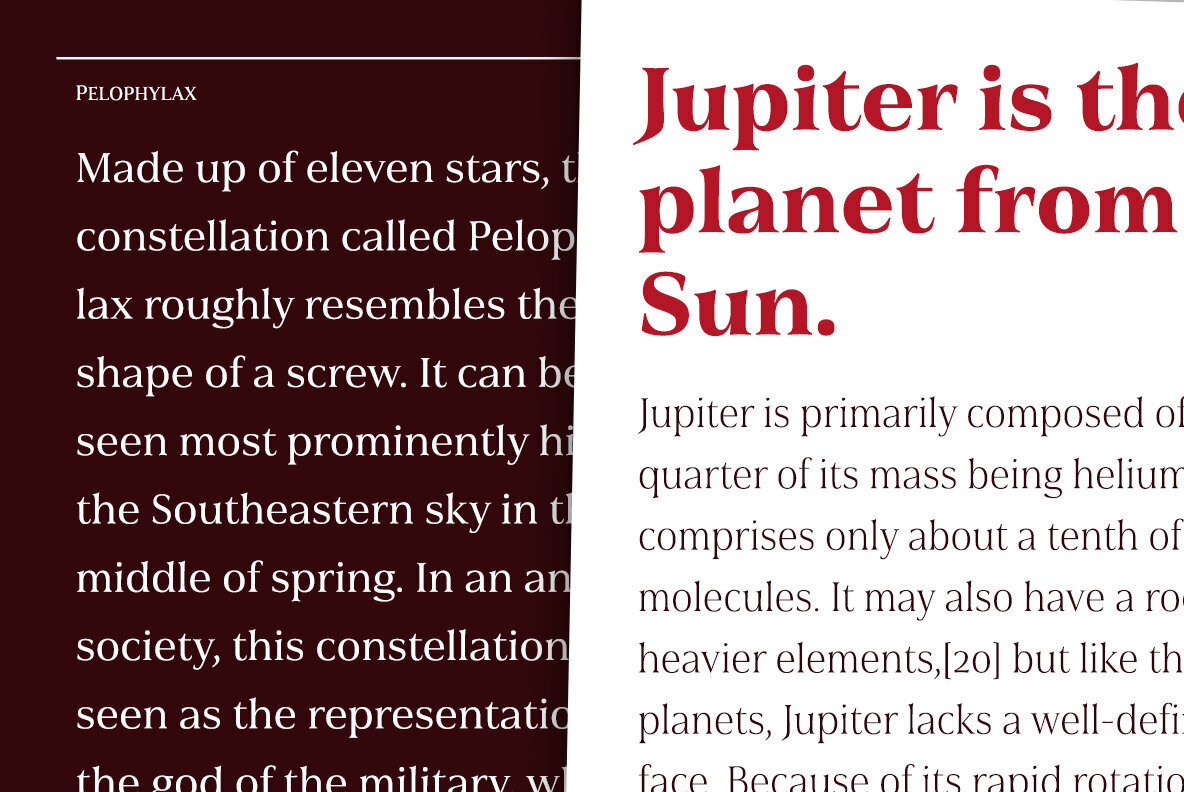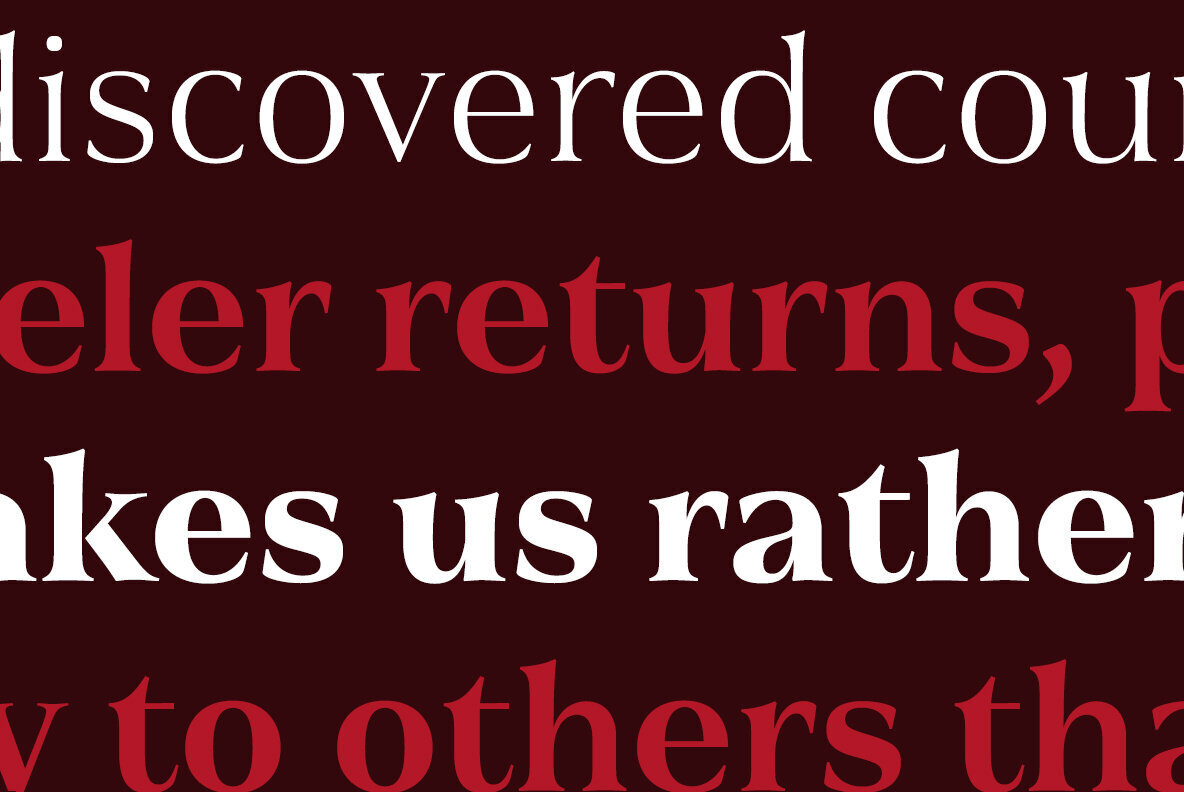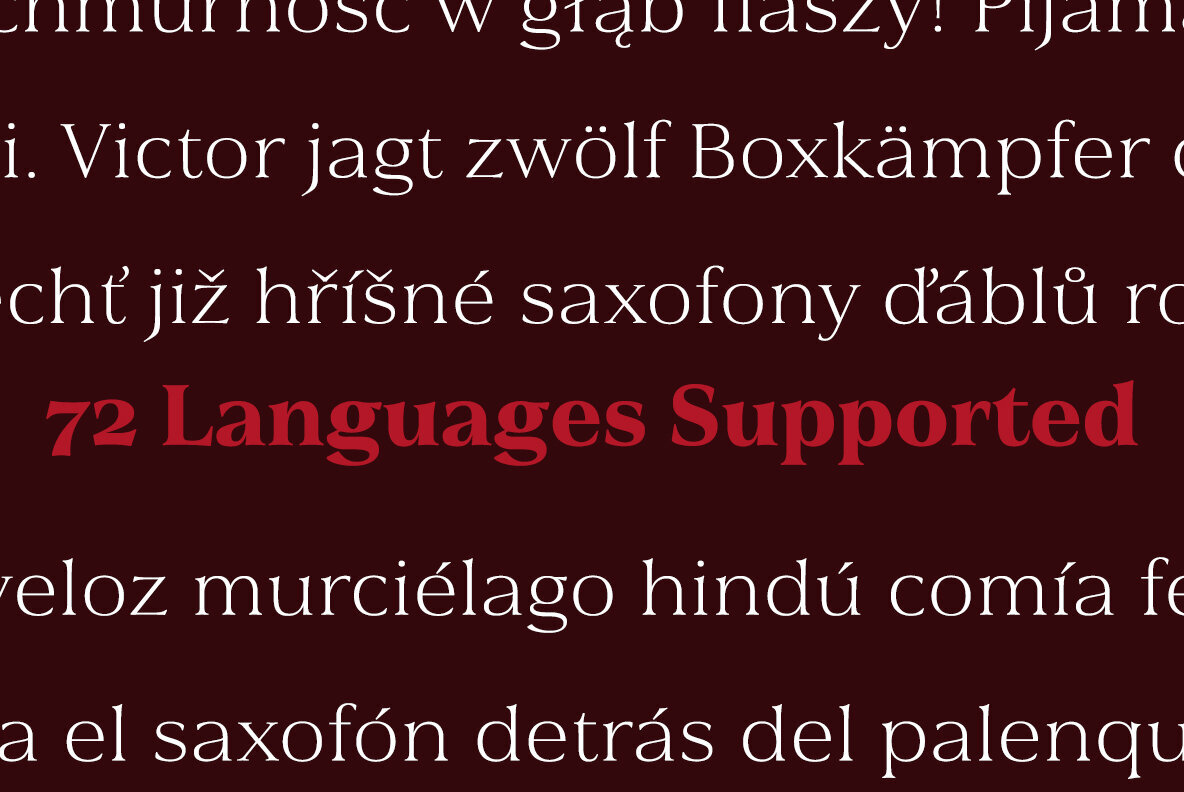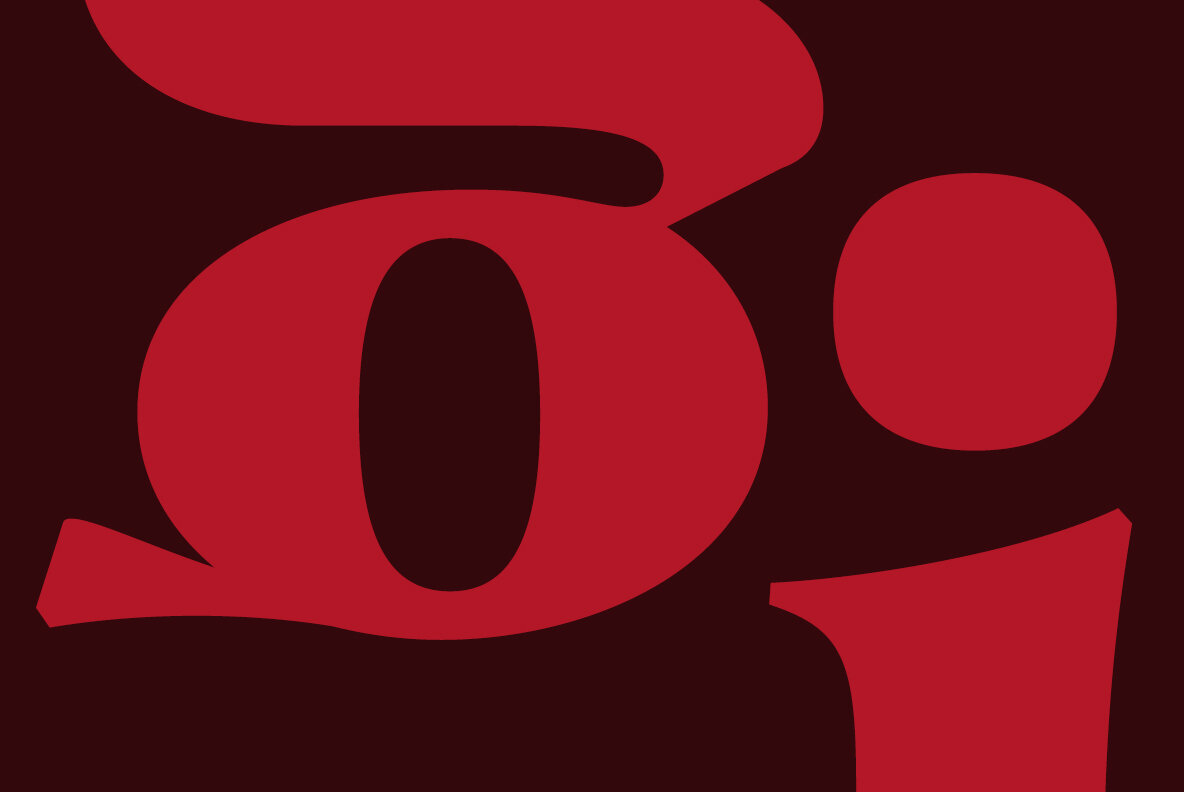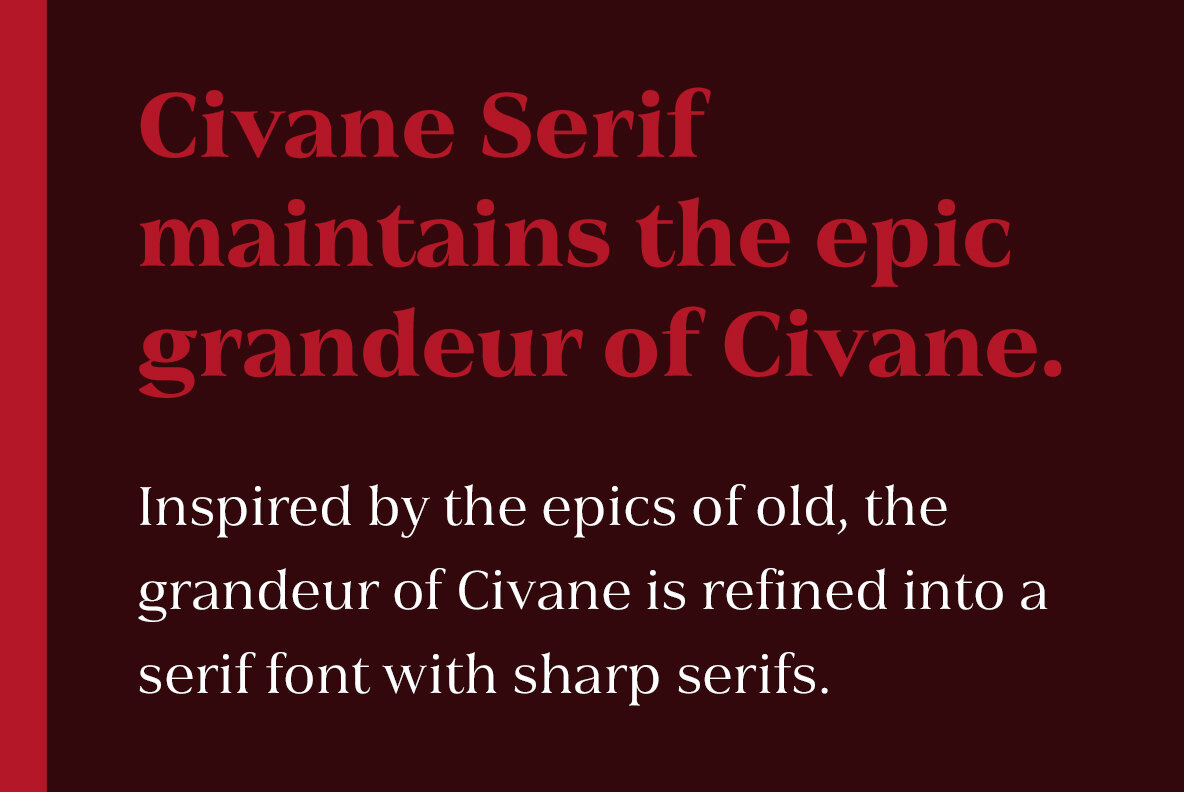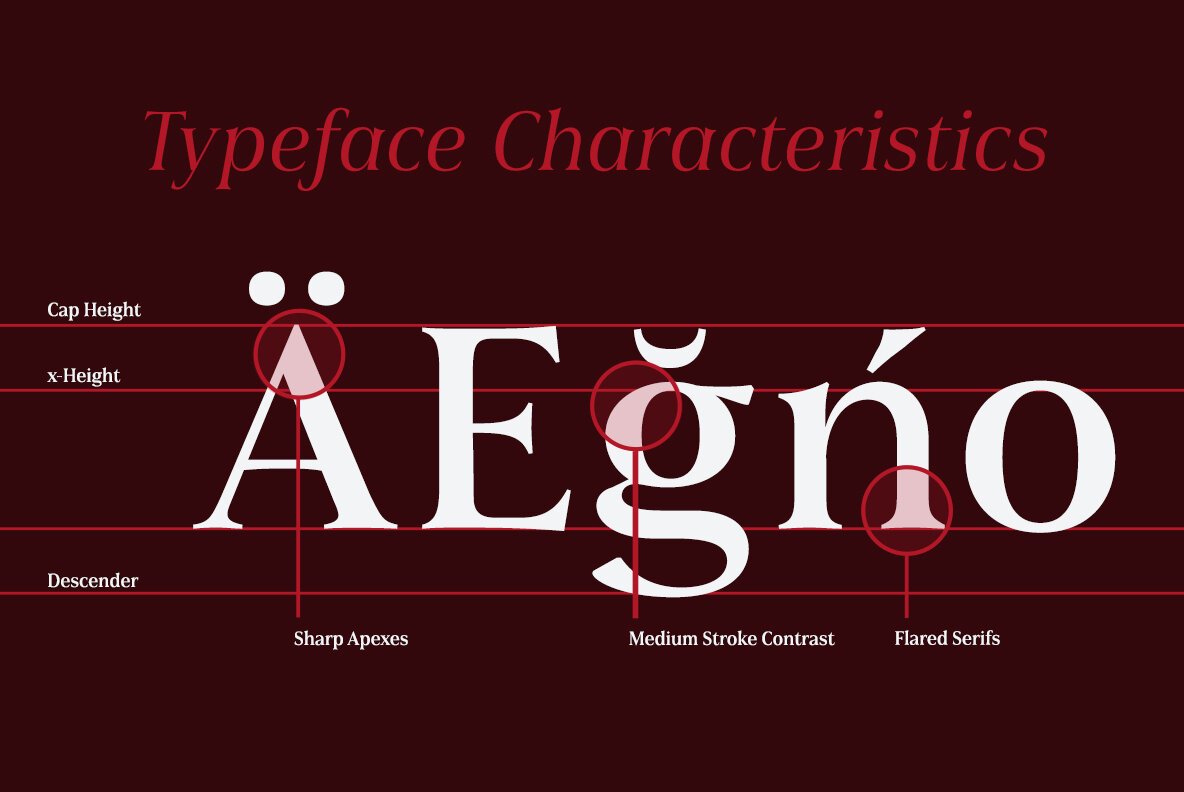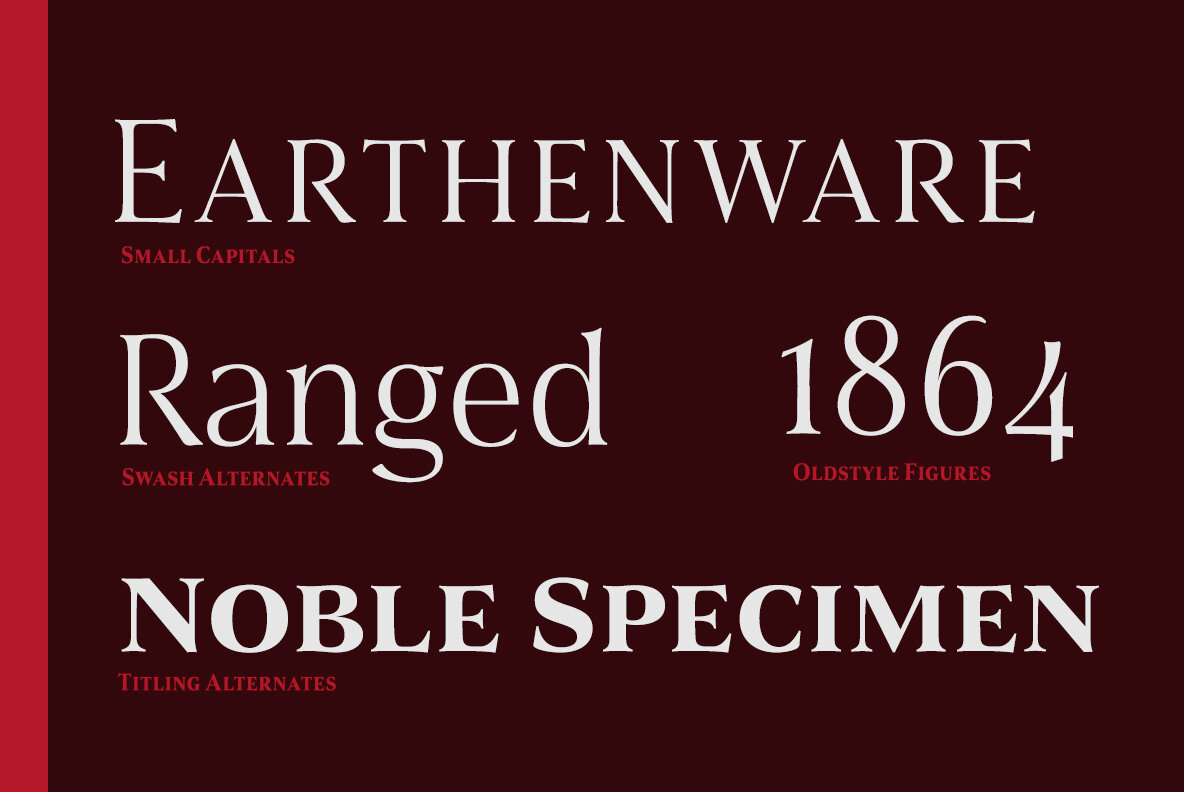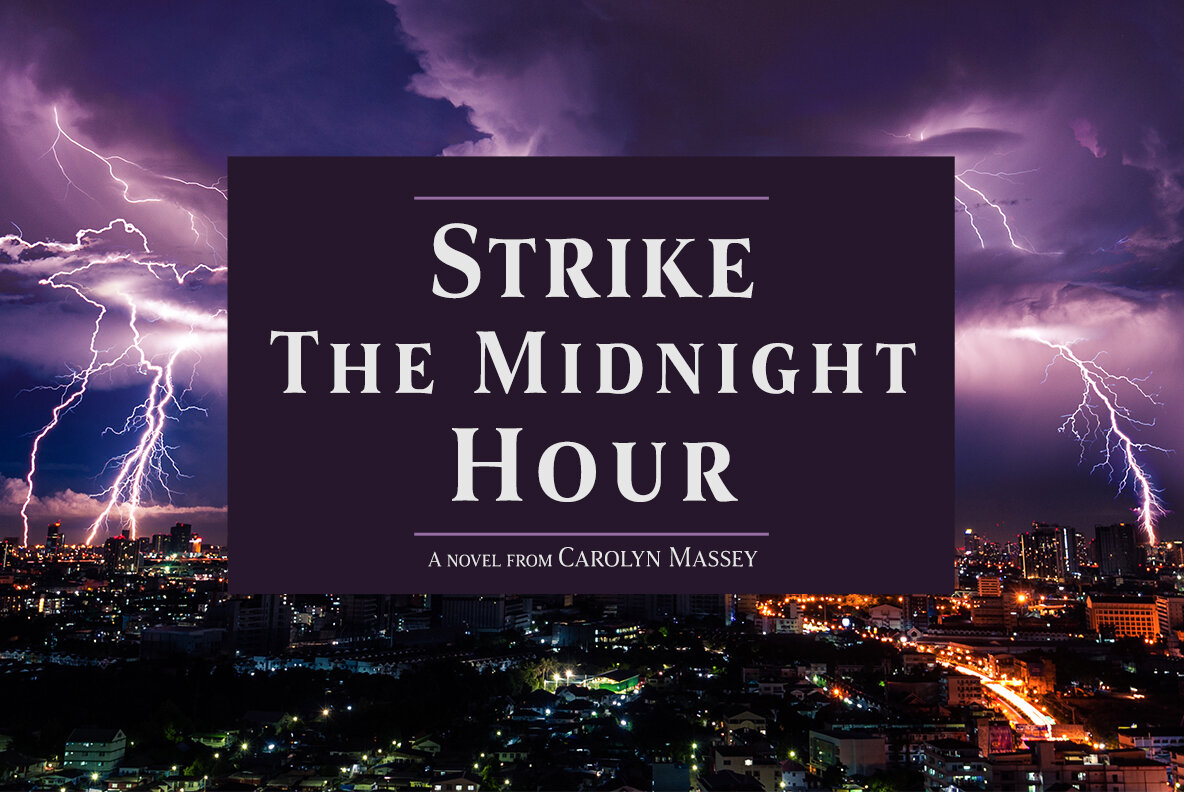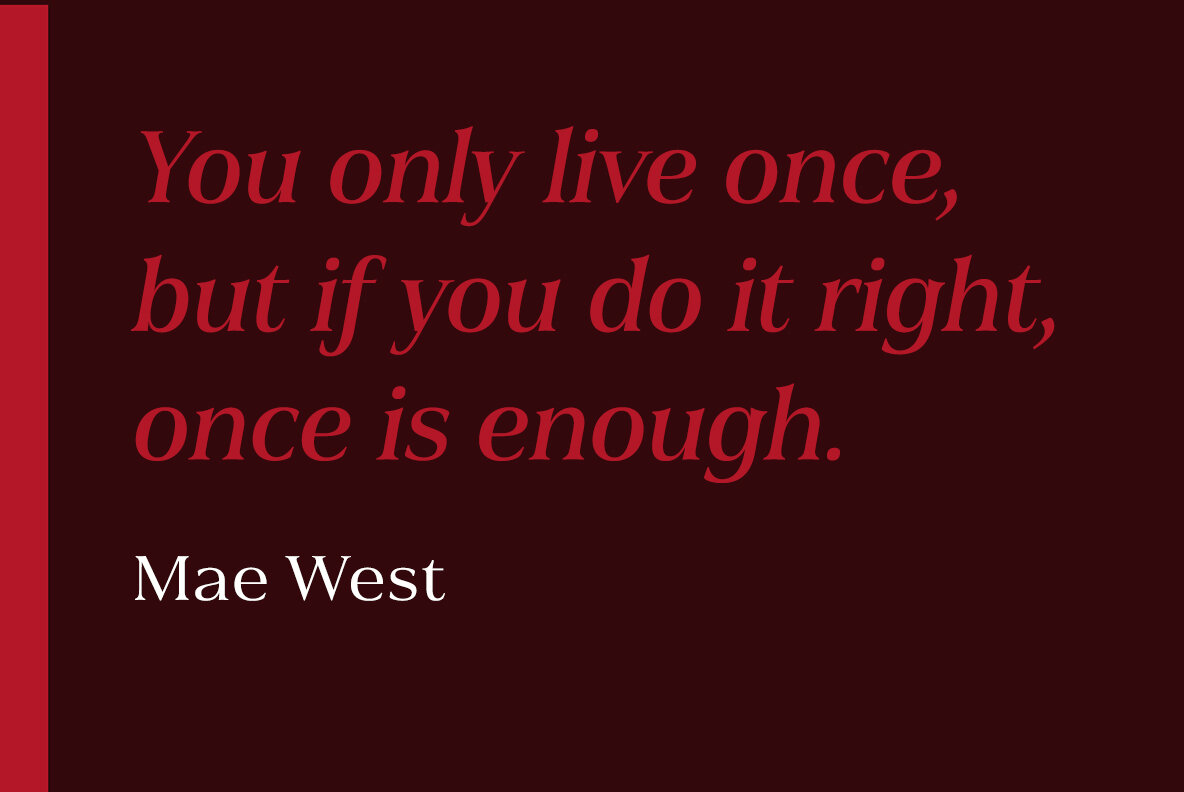
Civane Serif Font
Civane Serif maintains the epic grandeur of Civane with a text-friendly typeface. Inspired by the great tales of old, the grandeur of Civane is refined into a serif font with sharp serifs.
Civane Serif is one of the finest choices for serif text setting. The italic or bold weights, as well as the roman set in titling caps, will impart a feeling of serene dignity on posters and webpages. Civane Serif's craftsmanship shines through with its higher contrast modern design, perfect for high-end premium goods and services.